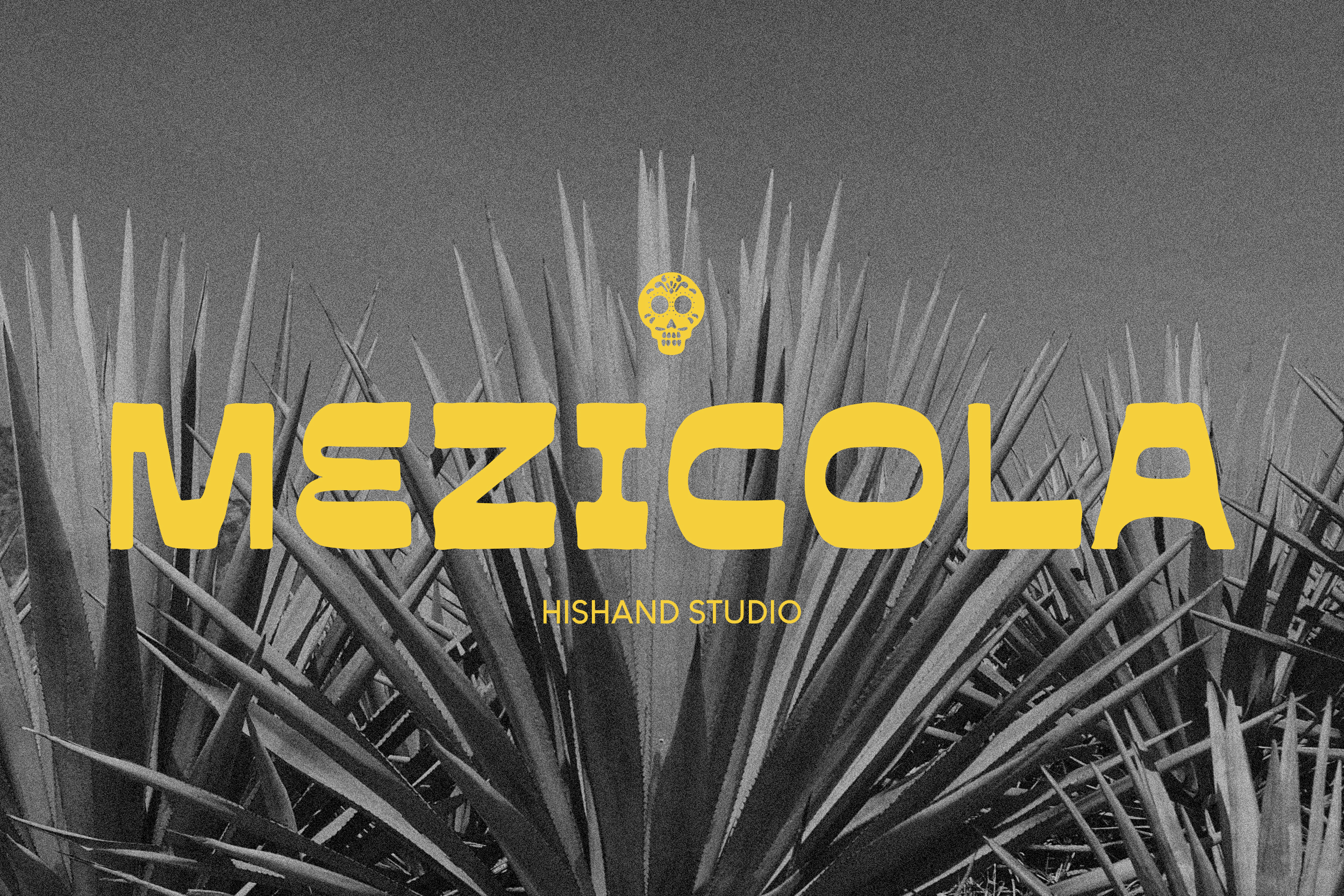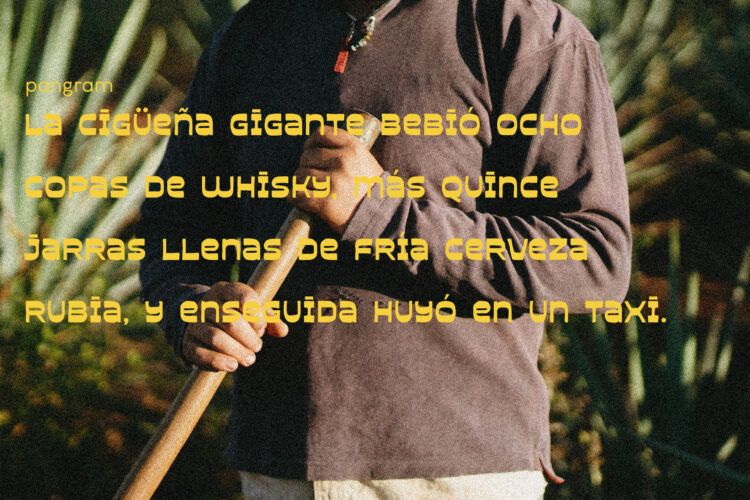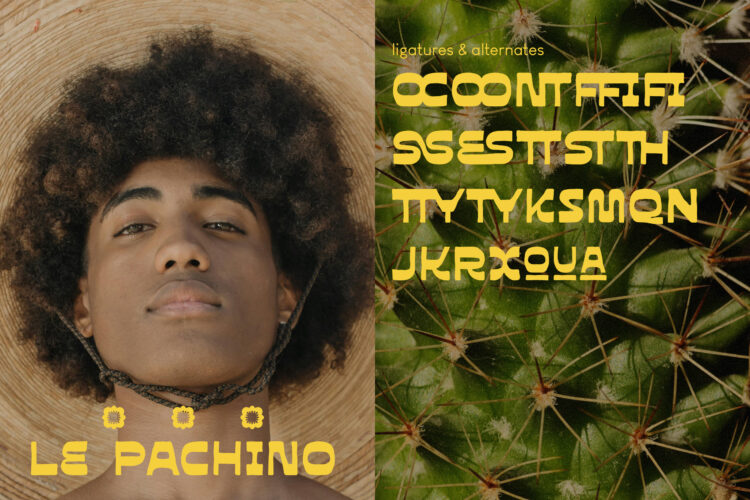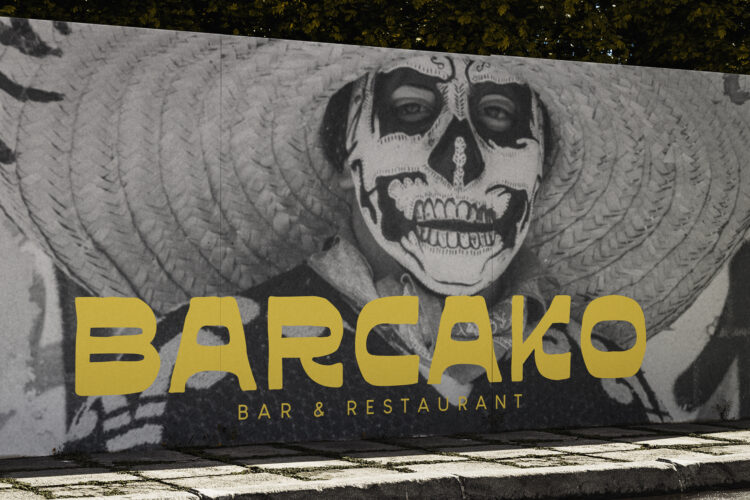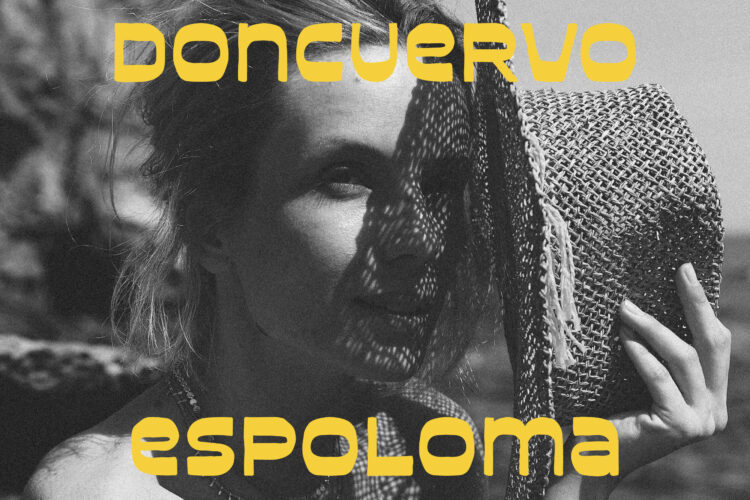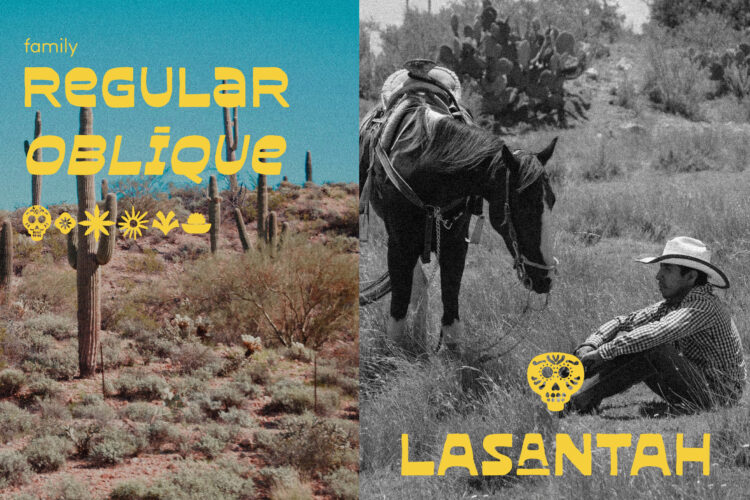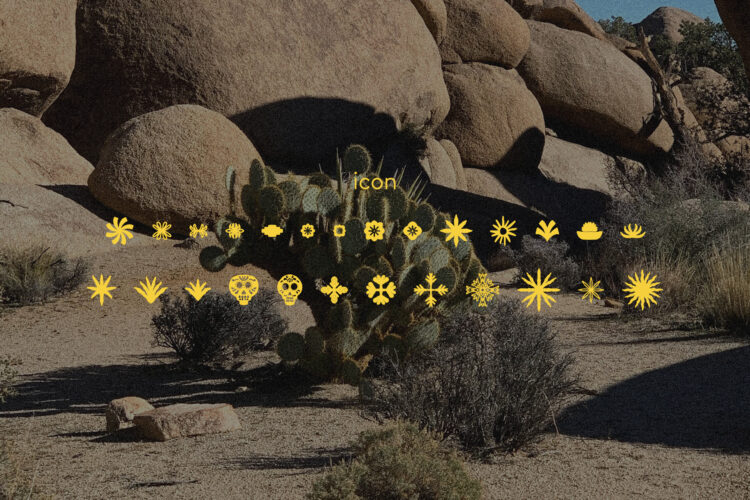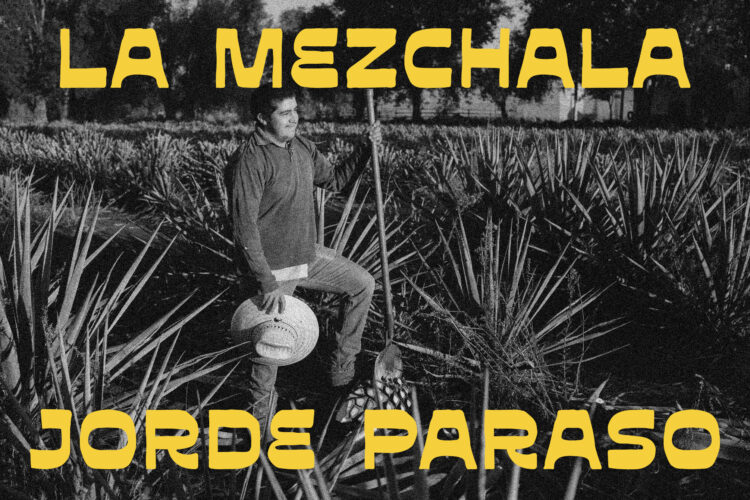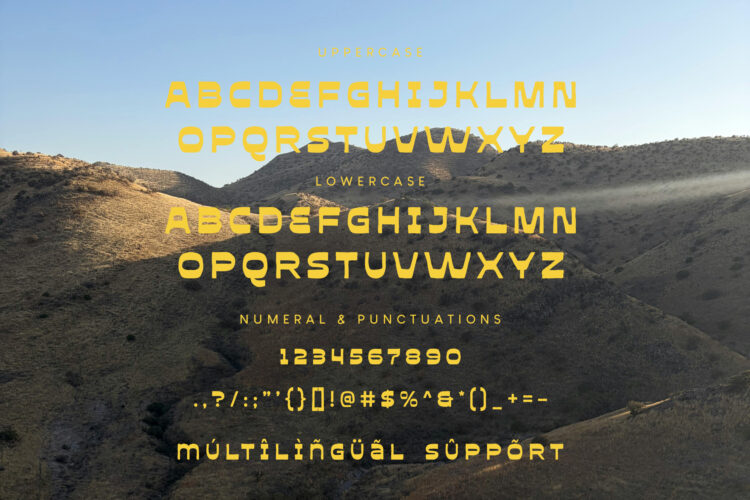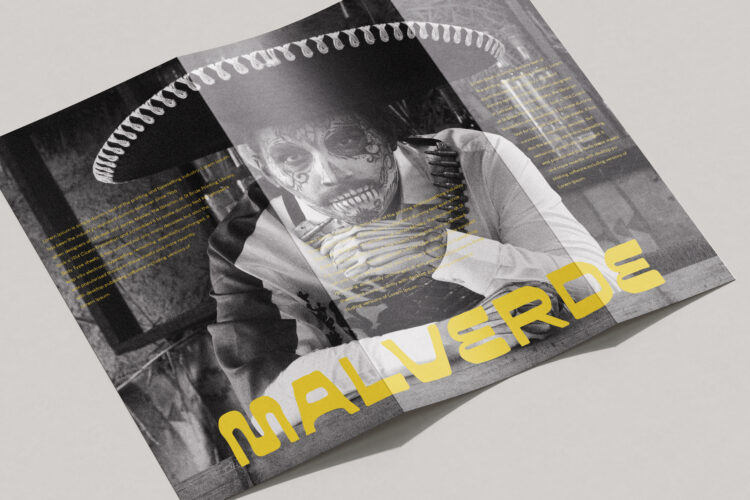
Mezicola Font
Description
Mezicola is a bold, heavy display font that grabs your attention the moment you see it.Mezicola is a bold, heavy display font that grabs your attention the moment you see it. Inspired by old industrial signs and vintage graphic design, its thick and wide letters were made to stand out in any layout. Every character has a strong, blocky shape with flat edges and even strokes, giving it a solid and powerful look, almost like it was stamped onto the page. But despite its toughness, the font still has its own unique character and charm that keeps it feeling interesting rather than boring.
One of the things that makes Mezicola special is how confident it looks at any size. Whether it is printed large on a billboard or used as a section header in a magazine, it always carries the same strong presence. The letters feel sturdy and grounded, like they are not going anywhere. This makes it a great choice for brands or projects that want to communicate strength, reliability, and a bold sense of identity.
Mezicola works best when used in big settings, on posters, album covers, logos, merchandise, and magazine headlines where you want people to stop and look. It is the kind of font that does not blend into the background. It steps forward and owns the space it is given. Designers often pair it with simple, clean body text to create a nice contrast between loud and quiet on the page.
When placed over rough textures, grainy photos, or warm earthy colors, Mezicola brings a gritty yet classic feel that looks both retro and modern at the same time. It fits naturally into streetwear, music, food and beverage branding, and any creative project that wants a raw and authentic edge.
At its core, Mezicola is a font built for impact. It does not try to be subtle or delicate. It is loud, direct, and full of personality. Whether you are building a brand from scratch or looking for a headline font that truly stands out, Mezicola delivers every single time. It is not just a font. It makes a statement.
• ligatures
• alternates
• regular
• oblique
• icon
• kerning
• multilingual support